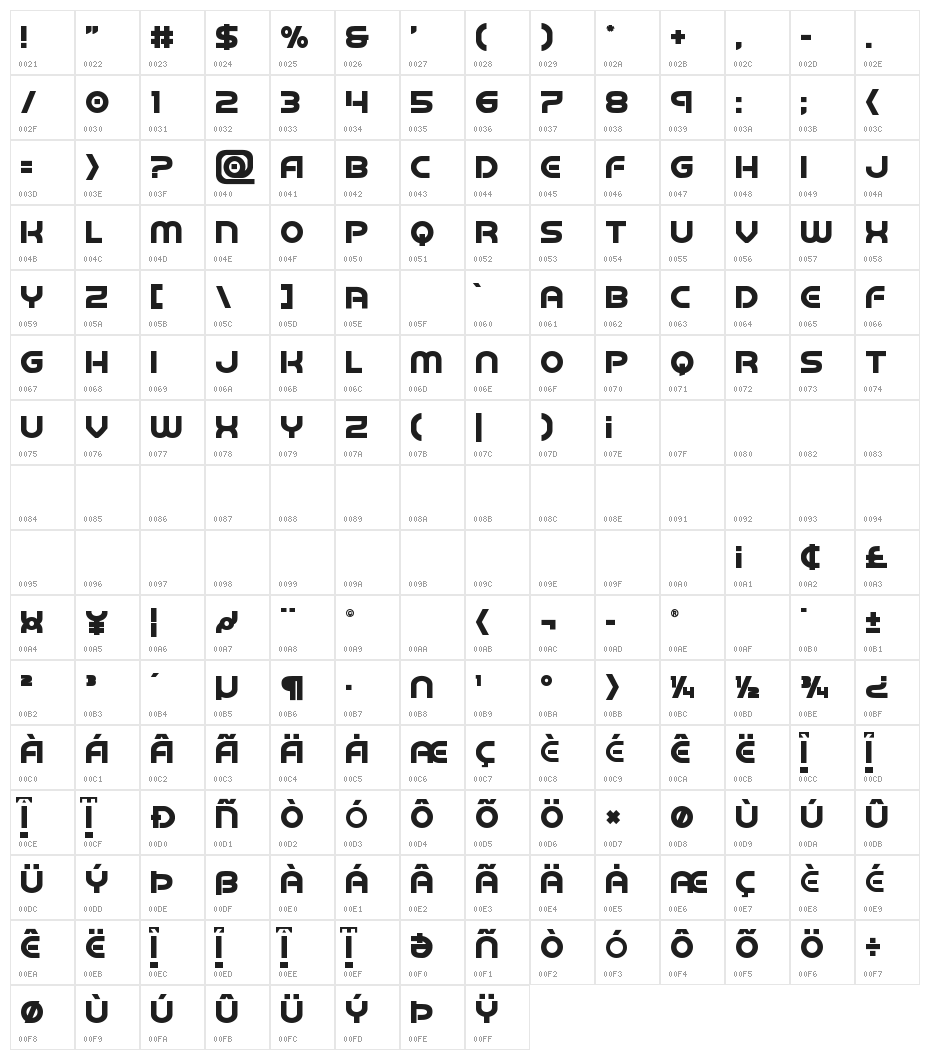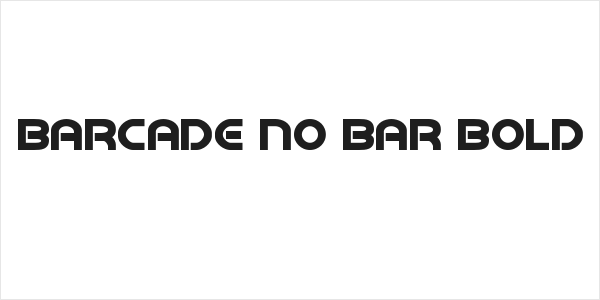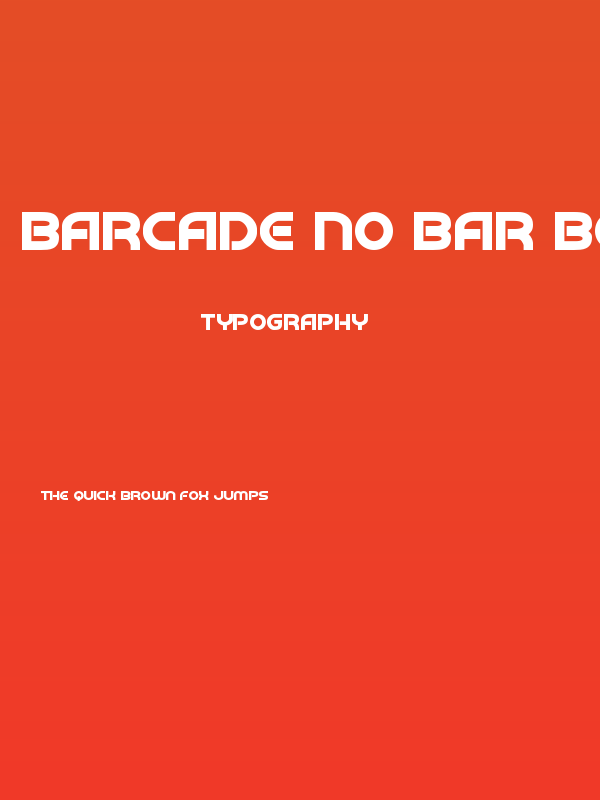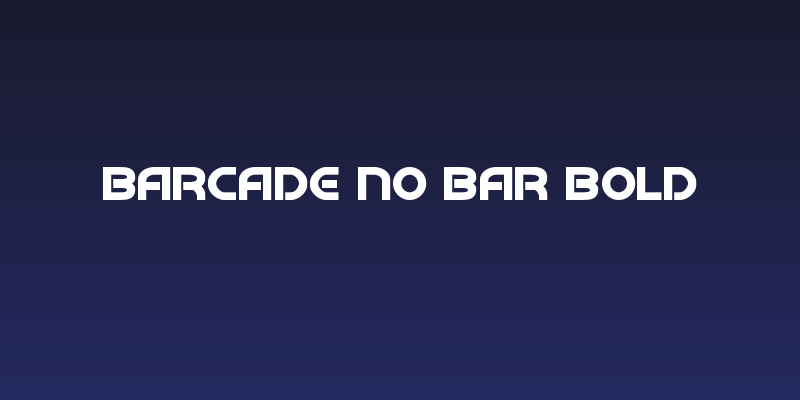
Barcade No Bar Bold Font
Barcade No Bar Bold Description
This font features a bold, geometric design with a modern and futuristic aesthetic. The characters are constructed with thick, uniform strokes, creating a strong visual impact. The letters have a distinct blocky appearance with rounded edges, giving them a unique and approachable feel. The numbers and special characters maintain the same bold style, ensuring consistency across all elements. The font's design is highly legible, making it suitable for various applications where clarity and emphasis are needed.
| Proposed Projects | Ideal for video game titles, tech branding, posters, and digital interfaces. |